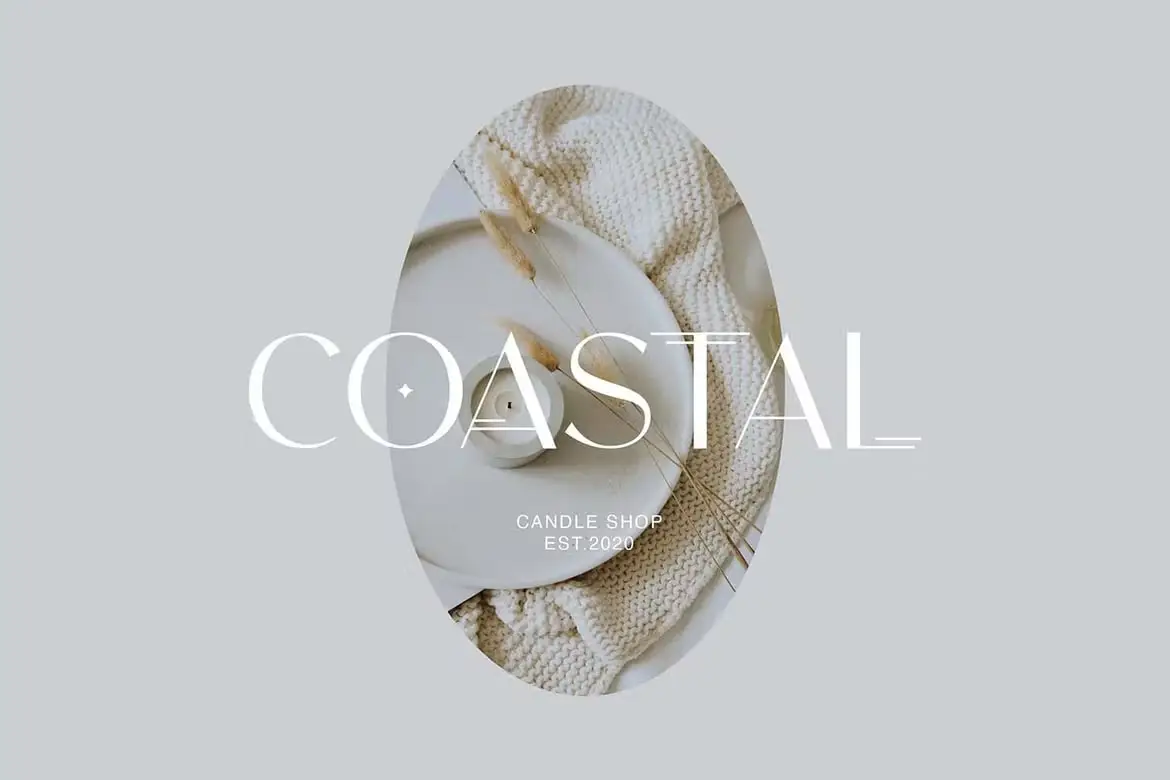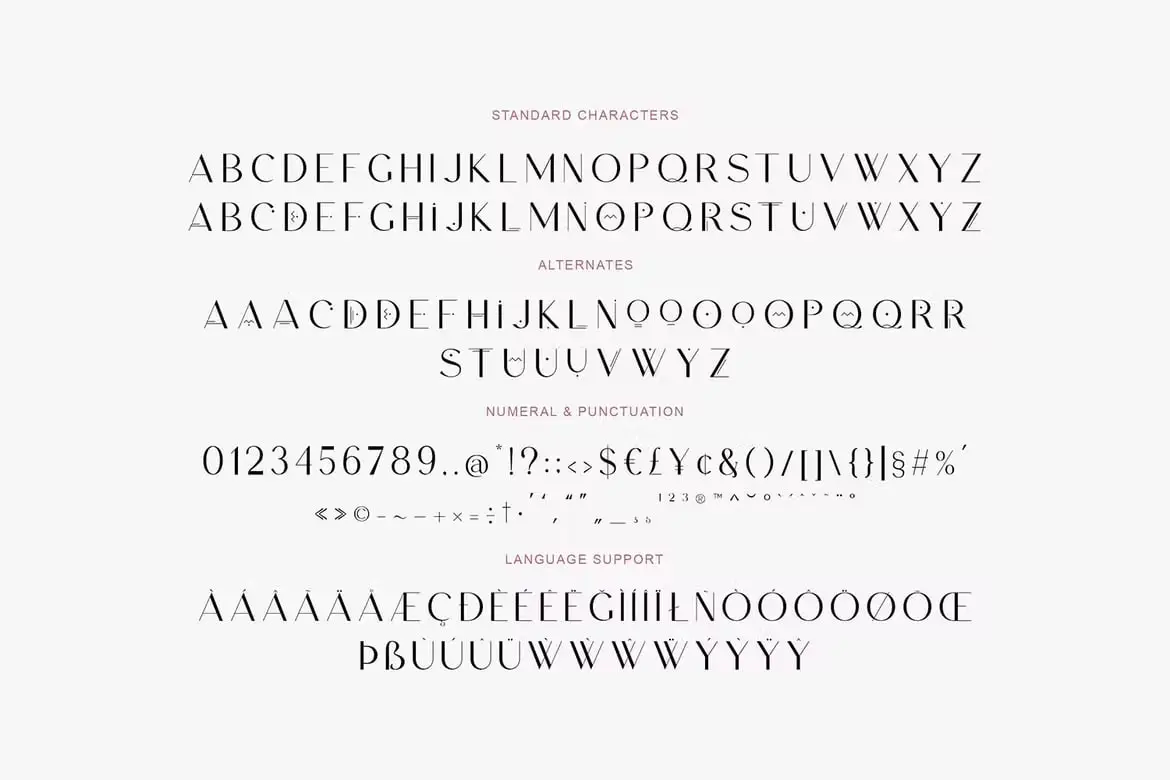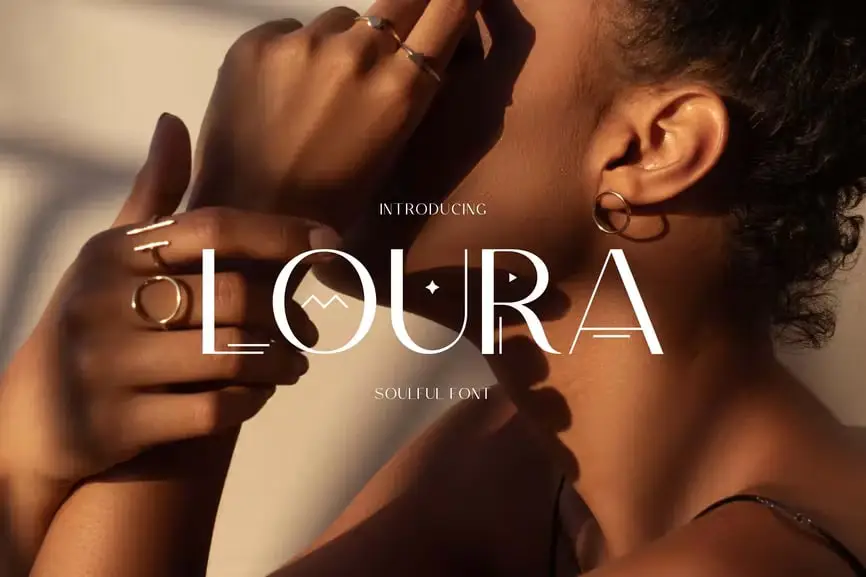
Soulful Sans Serif Font
The Soulful Sans Serif Font is a beautifully crafted typeface that combines modern aesthetics with timeless elegance. Its clean lines and smooth curves make it an excellent choice for a variety of design projects.
• Multiple weights for versatile usage
The Soulful Sans Serif Font is perfect for branding, logos, web design, and print materials. Its versatility allows it to shine in both digital and physical formats, making it a valuable addition to any designer’s toolkit.